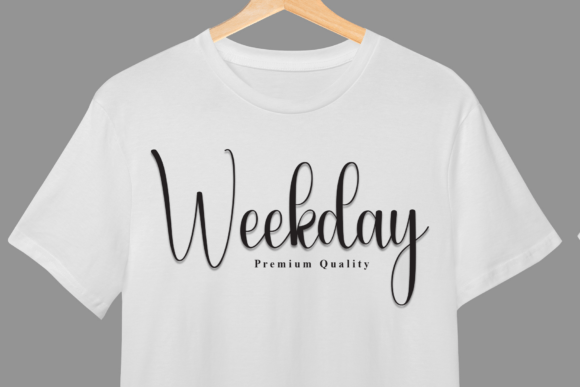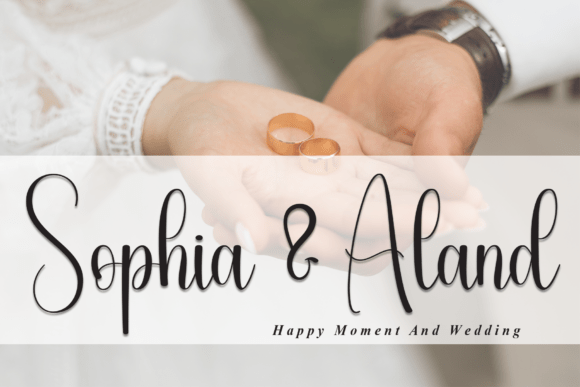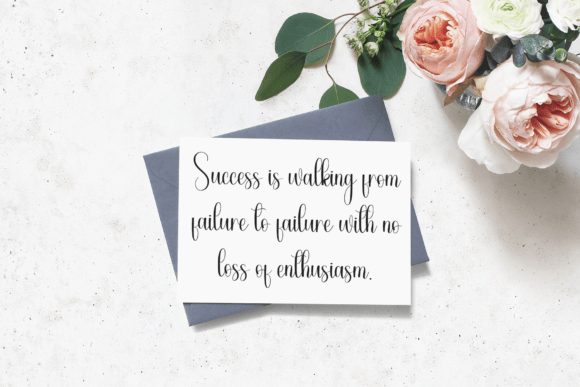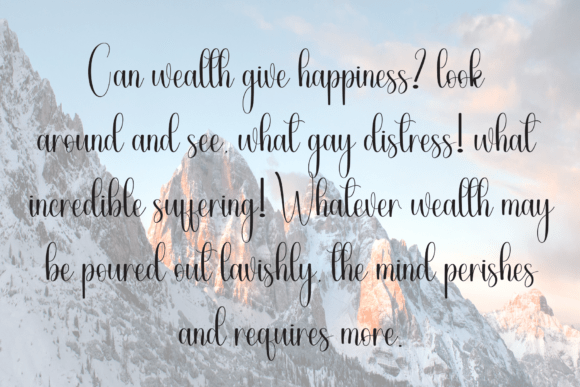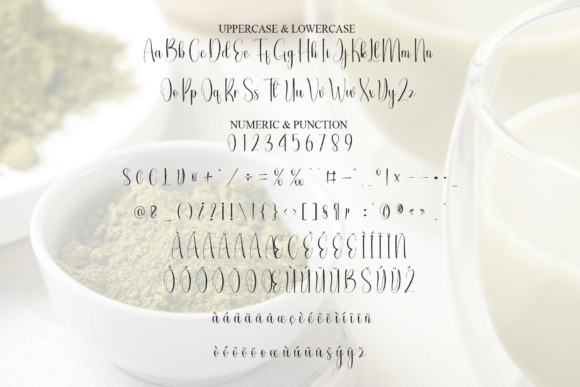
Introducing Greentea Font: Elevate Your Designs with Elegance and Playfulness
In the world of typography, a font can make all the difference in transforming a design from ordinary to extraordinary. For designers and crafters seeking a typeface that embodies both modern sophistication and a touch of playfulness, Greentea Font is an exceptional choice. This stylish handwritten script font is meticulously crafted to bring a personal feel to any project, making it ideal for logos, packaging, invitations, and more.
The Essence of Greentea Font
Greentea Font is characterized by its fluid strokes and charming curves, which collectively contribute to its unique and captivating aesthetic. This font seamlessly blends modern elegance with a playful touch, allowing designers to infuse their creations with warmth, sophistication, and creativity. Whether you’re working on a logo, product packaging, or an invitation, Greentea Font is sure to elevate your design to new heights.
Key Features of Greentea Font
- Fluid Strokes: The fluidity of Greentea Font’s strokes gives it a dynamic and organic feel, making it perfect for designs that require a personal touch.
- Charming Curves: The charming curves of this font add a level of sophistication and elegance, suitable for high-end branding and luxury packaging.
- Modern Elegance: Greentea Font’s modern aesthetic ensures that your designs look contemporary and fresh, appealing to a wide audience.
- Playful Touch: The playful elements of this font make it versatile for use in various creative projects, from whimsical invitations to trendy product labels.
Applications of Greentea Font
Greentea Font’s versatility makes it suitable for a wide range of applications. Here are some of the most popular uses:
- Logos: Create a memorable brand identity with a logo that stands out, thanks to Greentea Font’s unique and stylish appearance.
- Packaging: Elevate your product packaging with a sophisticated and eye-catching design that reflects your brand’s personality.
- Invitations: Make your invitations special with Greentea Font’s elegant and playful charm, perfect for weddings, parties, and other celebrations.
- Marketing Materials: Use Greentea Font in your marketing materials, such as brochures, flyers, and posters, to add a touch of elegance and creativity.
Why Choose Greentea Font?
In a sea of fonts, Greentea Font stands out for several reasons:
- Unique Aesthetic: Its blend of modern elegance and playfulness makes it a one-of-a-kind typeface that can set your designs apart.
- Versatility: Greentea Font can be used across various design projects, making it a valuable addition to any designer’s toolkit.
- Easy to Read: Despite its elegant and cursive nature, Greentea Font remains highly legible, ensuring your message is communicated effectively.
Greentea Font is more than just a typeface; it’s a design statement. With its fluid strokes, charming curves, and perfect blend of modern elegance and playfulness, it’s an excellent choice for designers and crafters looking to add a personal touch to their creations. Whether you’re aiming to create a stunning logo, captivating packaging, or beautiful invitations, Greentea Font is sure to bring your vision to life. Embrace the elegance and playfulness of Greentea Font in your next design project and experience the difference it can make.
Discover the creative possibilities with Greentea Font today and take your designs to new heights of sophistication and charm.